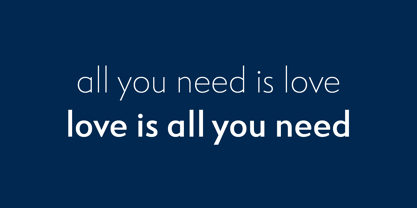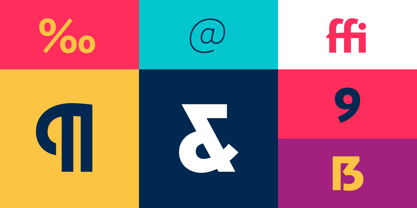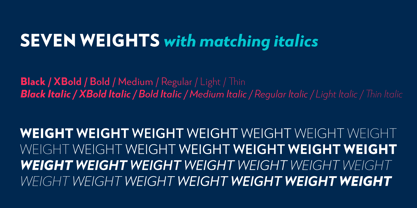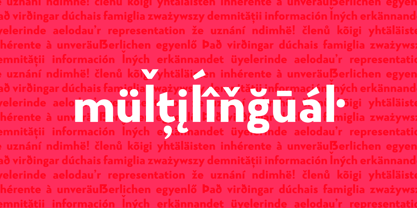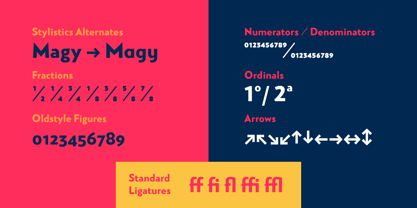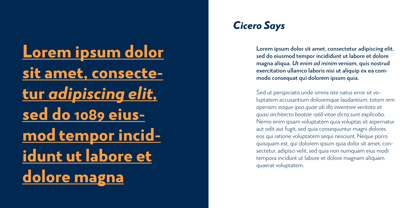
RNS Miles Font
RNS Miles Font is perfect for travel branding, adventure marketing campaigns, outdoor equipment logos, expedition company materials, journey-focused designs, exploration-themed graphics, wanderlust social media content, adventure tourism branding, navigation app interfaces, and dynamic lifestyle communications.
What makes RNS Miles Font so exciting is its adventurous spirit that captures the essence of exploration and discovery while maintaining professional reliability and contemporary appeal. This dynamic typeface embodies freedom and movement, creating typography that inspires wanderlust and communicates the excitement of endless possibilities and new horizons.
The RNS Miles Font family includes light, regular, medium, bold, and black weights, complete with italic variations and adventure-inspired design features that provide designers with comprehensive tools for creating inspiring and memorable typography that celebrates the spirit of exploration and discovery.
Embark on typographic adventures with RNS Miles Font Free Download, a dynamically crafted typeface that brings the spirit of exploration and discovery to contemporary design projects. This exceptional font embodies the perfect fusion of adventurous energy and professional quality, making it an ideal choice for brands that celebrate journey, discovery, and the endless possibilities of exploration.
The dynamically designed letterforms of RNS Miles Font showcase adventurous character with inspiring presence that creates instant connection with audiences seeking exploration and discovery. Each character displays careful attention to maintaining the energetic spirit that defines adventure while ensuring contemporary readability and professional versatility. The font's dynamic construction and inspiring spacing contribute to its adventurous appearance and motivational appeal.
Travel brands and adventure-focused companies consistently choose RNS Miles Font for projects requiring inspirational energy and exploratory sophistication. The comprehensive character set includes uppercase and lowercase letters, numerals, extensive punctuation, international accents, and adventure-inspired elements that provide complete support for travel branding applications and exploration-themed design compositions.
The inspiring versatility of RNS Miles Font ensures exceptional performance across both traditional print and modern digital platforms. Whether developing travel brand identities, creating adventure marketing campaigns, or designing exploration-themed content, this remarkable typeface delivers consistent inspiration that resonates with audiences seeking adventure, discovery, and transformative experiences.
Transform your most adventurous projects with RNS Miles Font Free Download. This extraordinary typeface brings exploratory spirit and dynamic energy to typography, making it the essential choice for designers who create experiences that celebrate the beauty of journey, the excitement of discovery, and the endless possibilities of exploration.